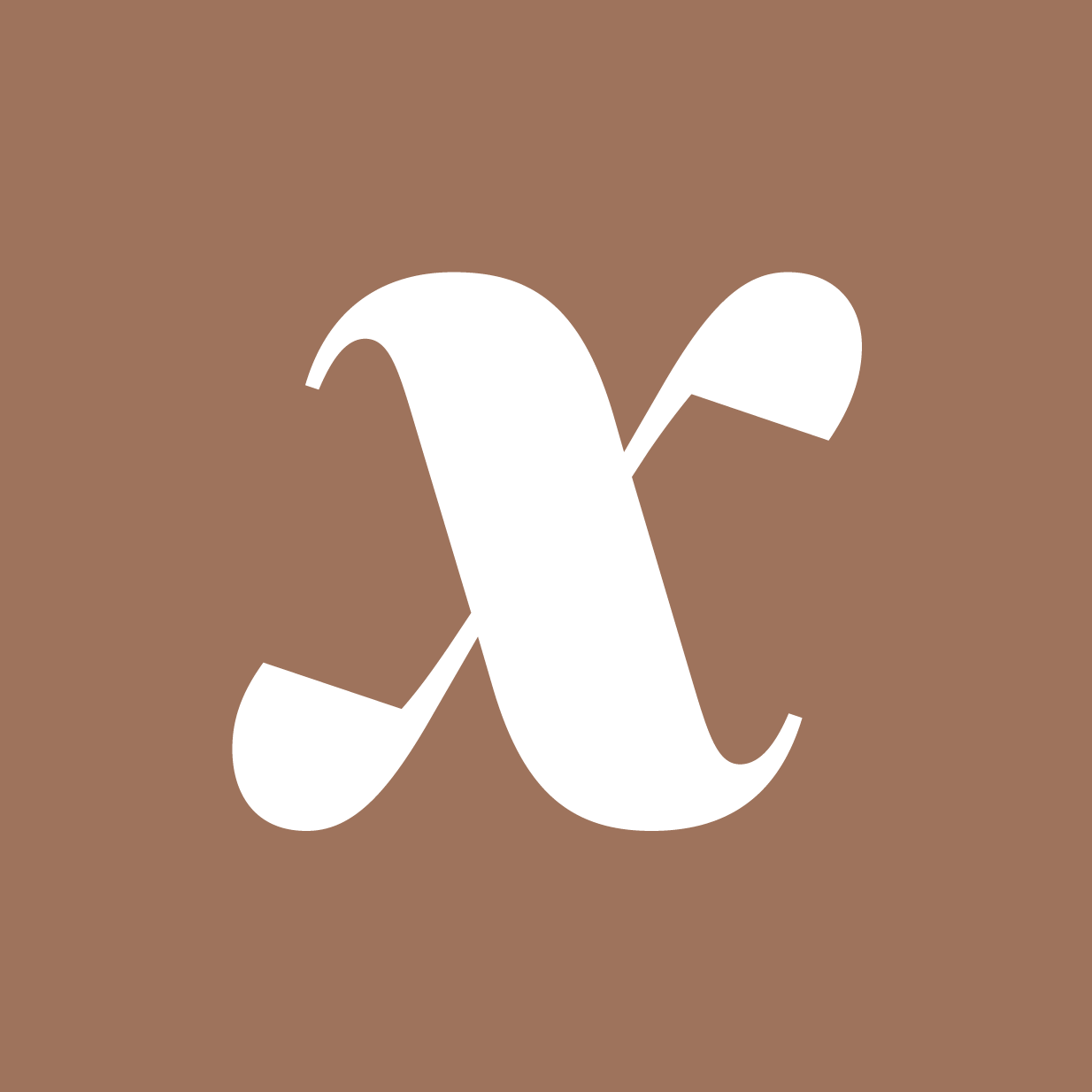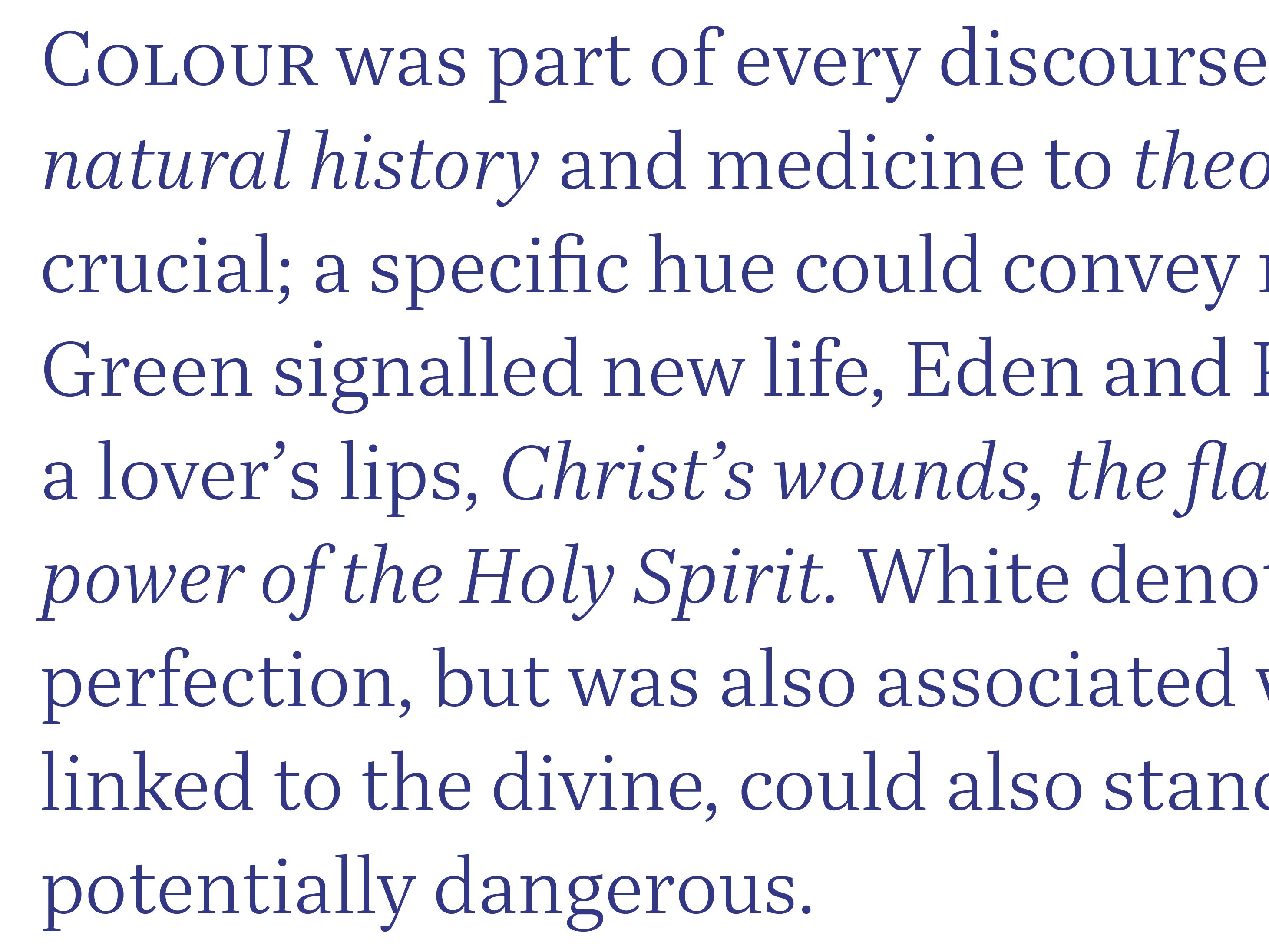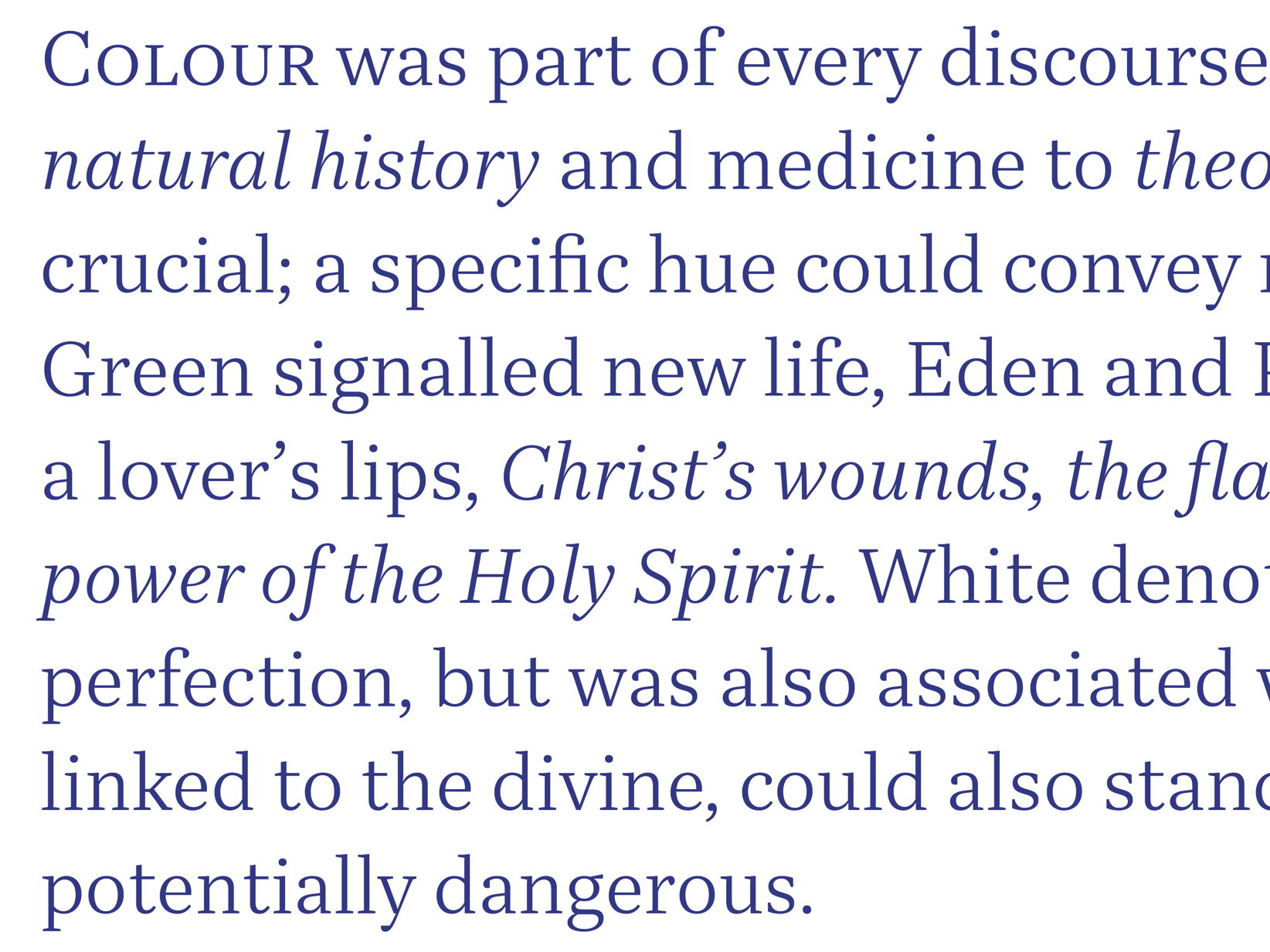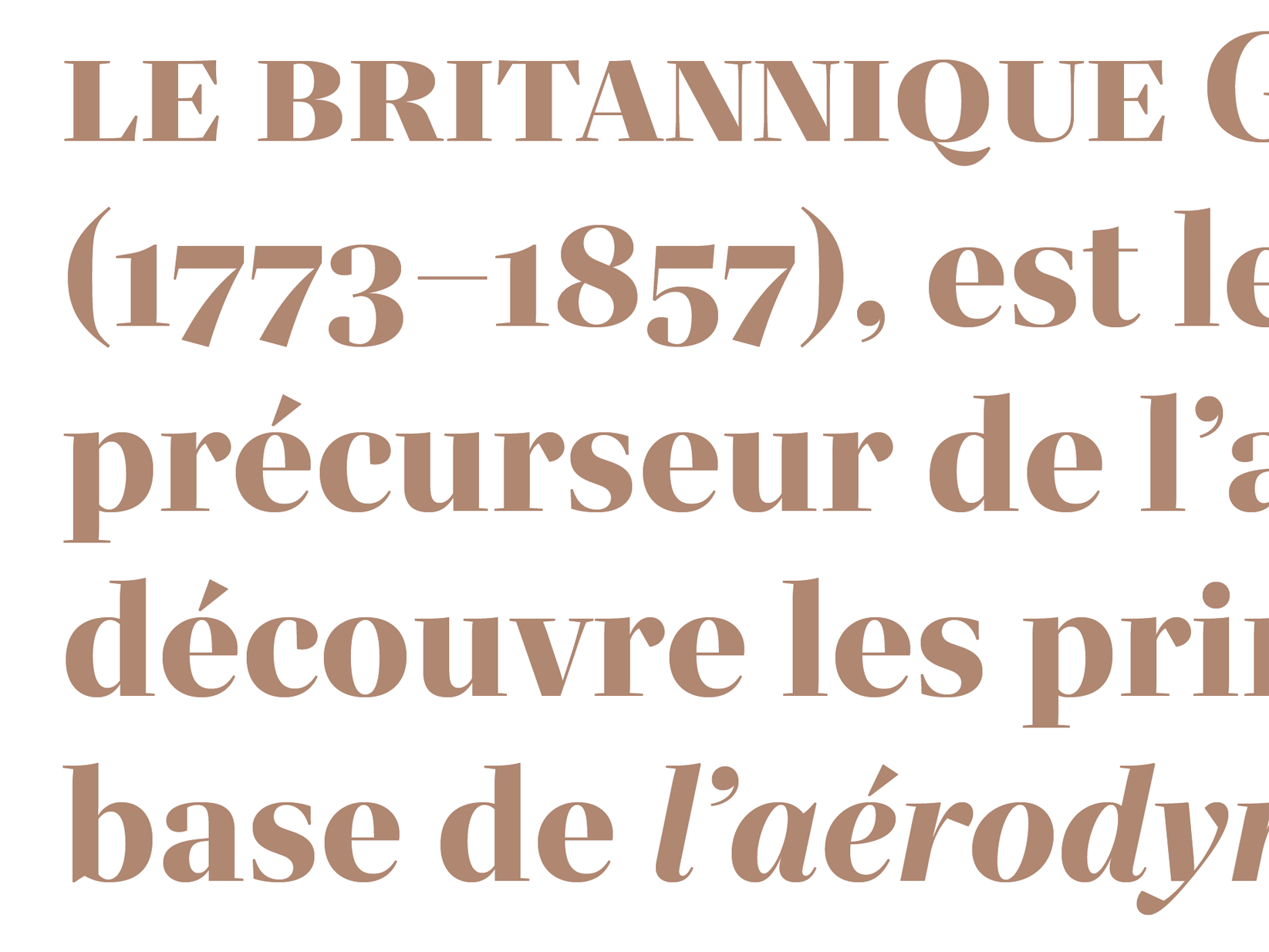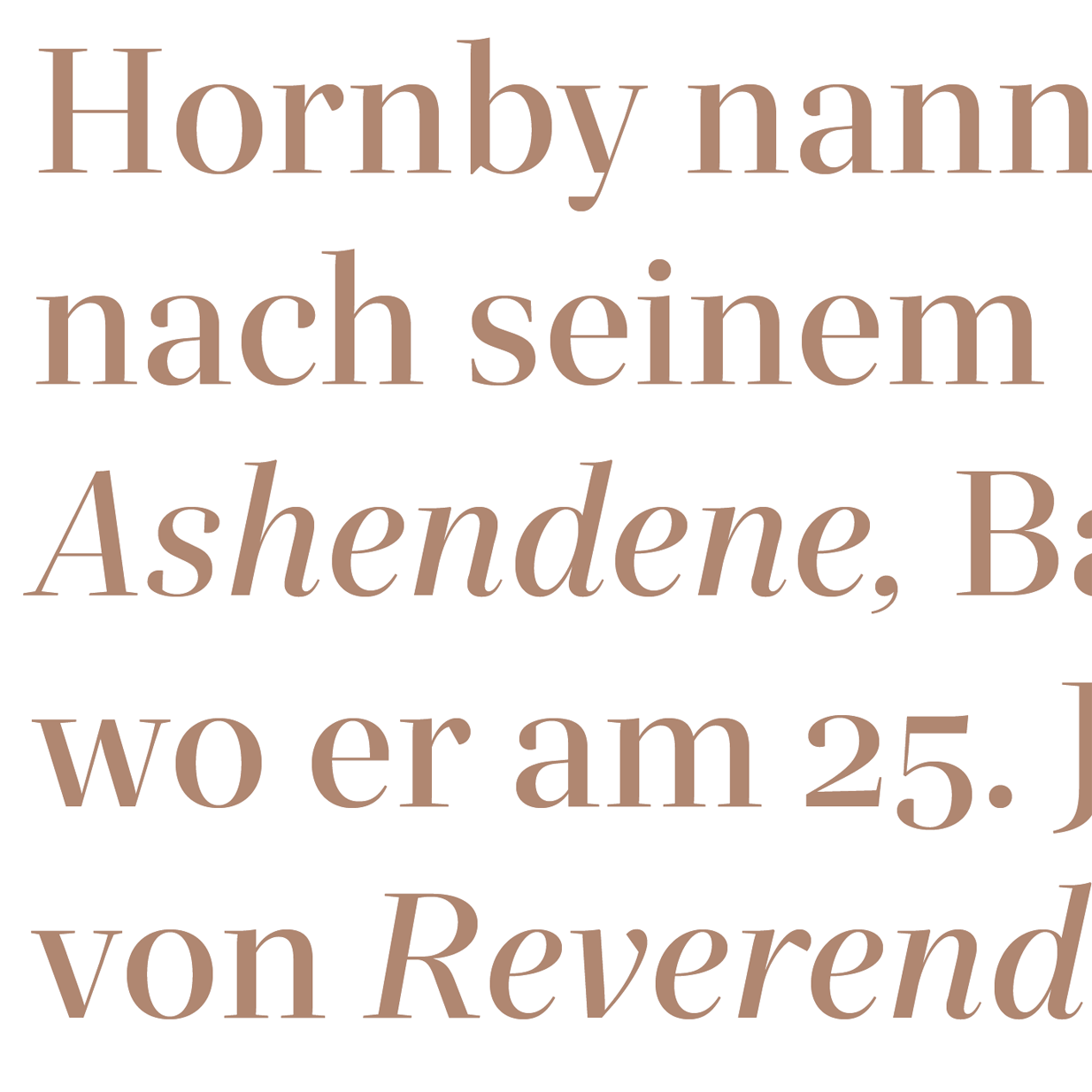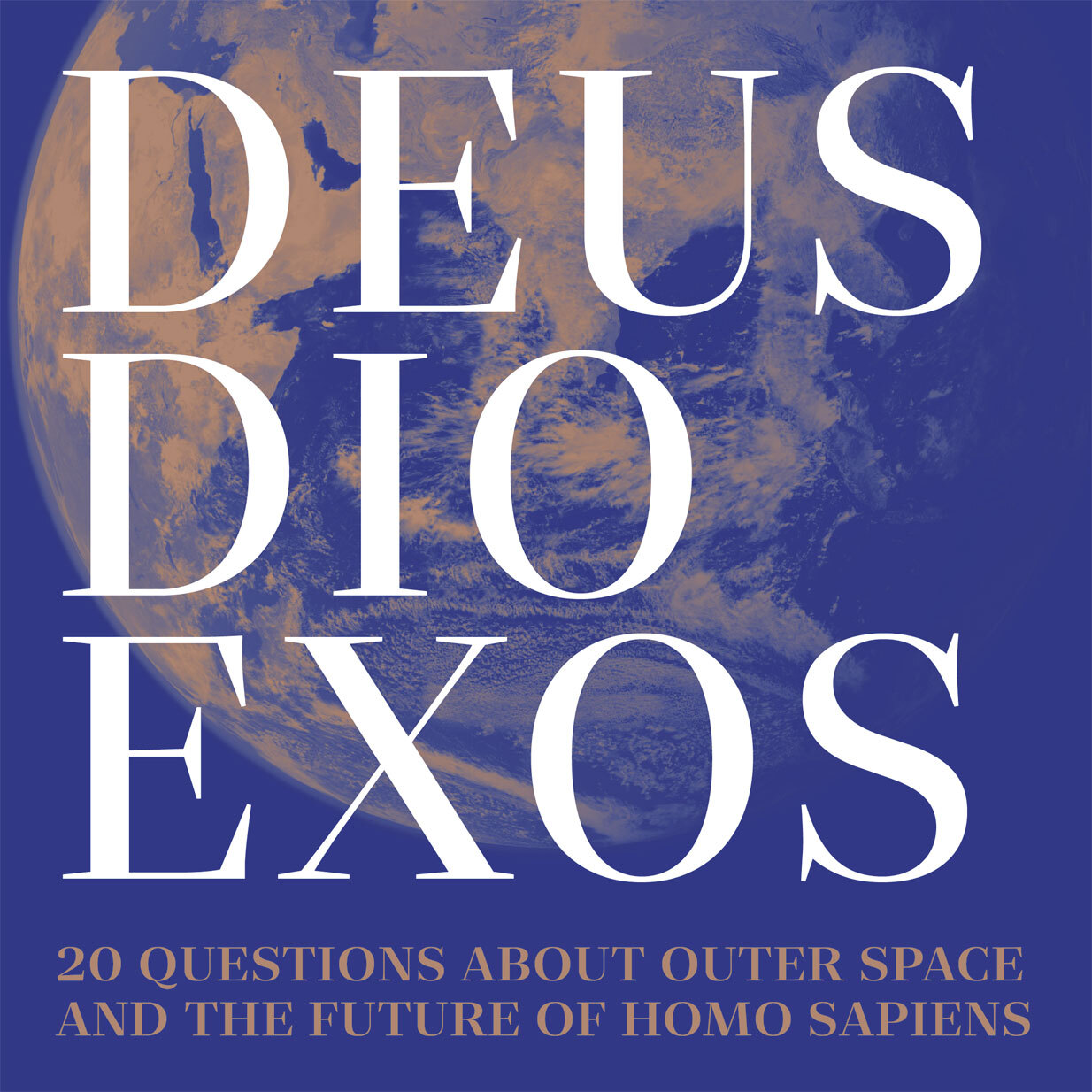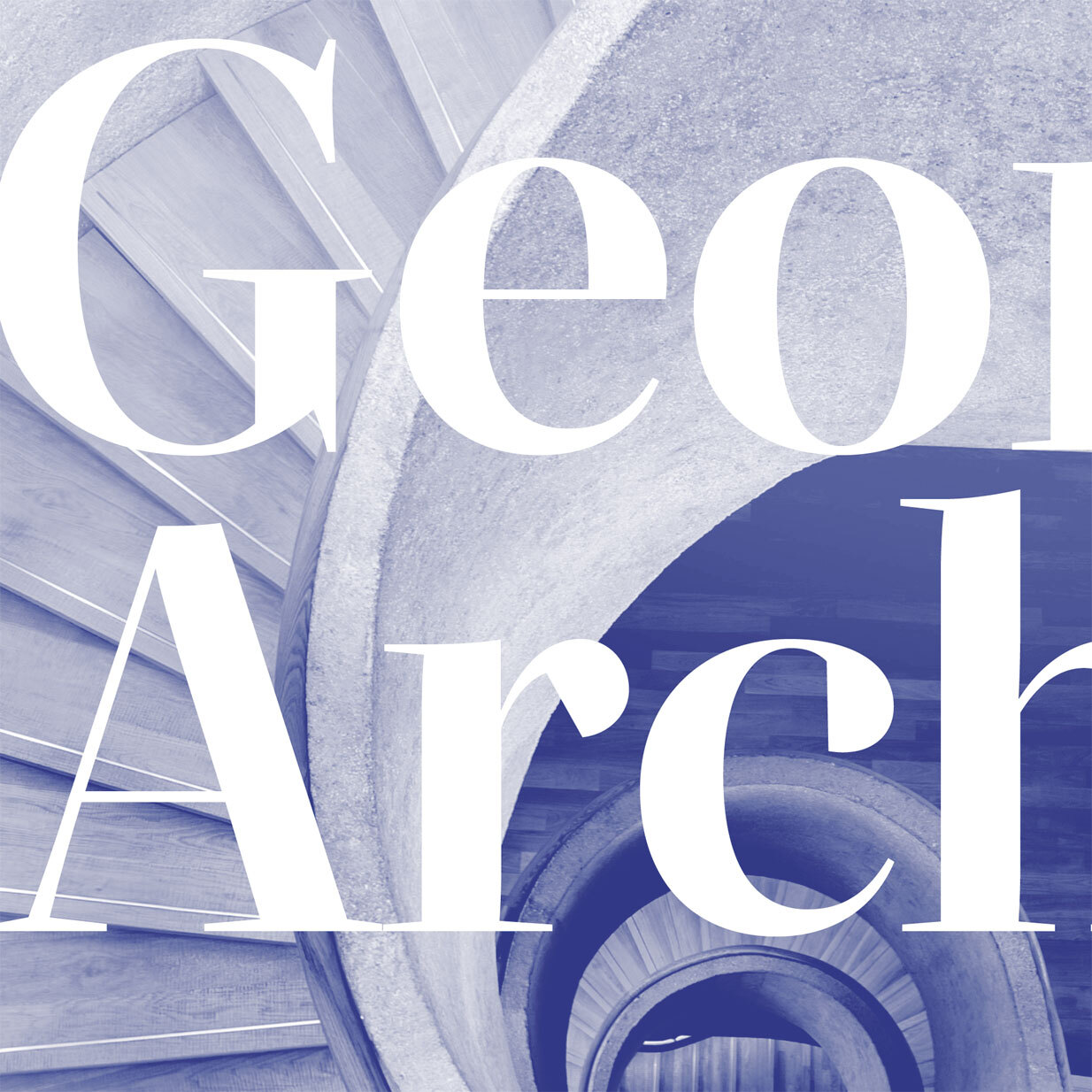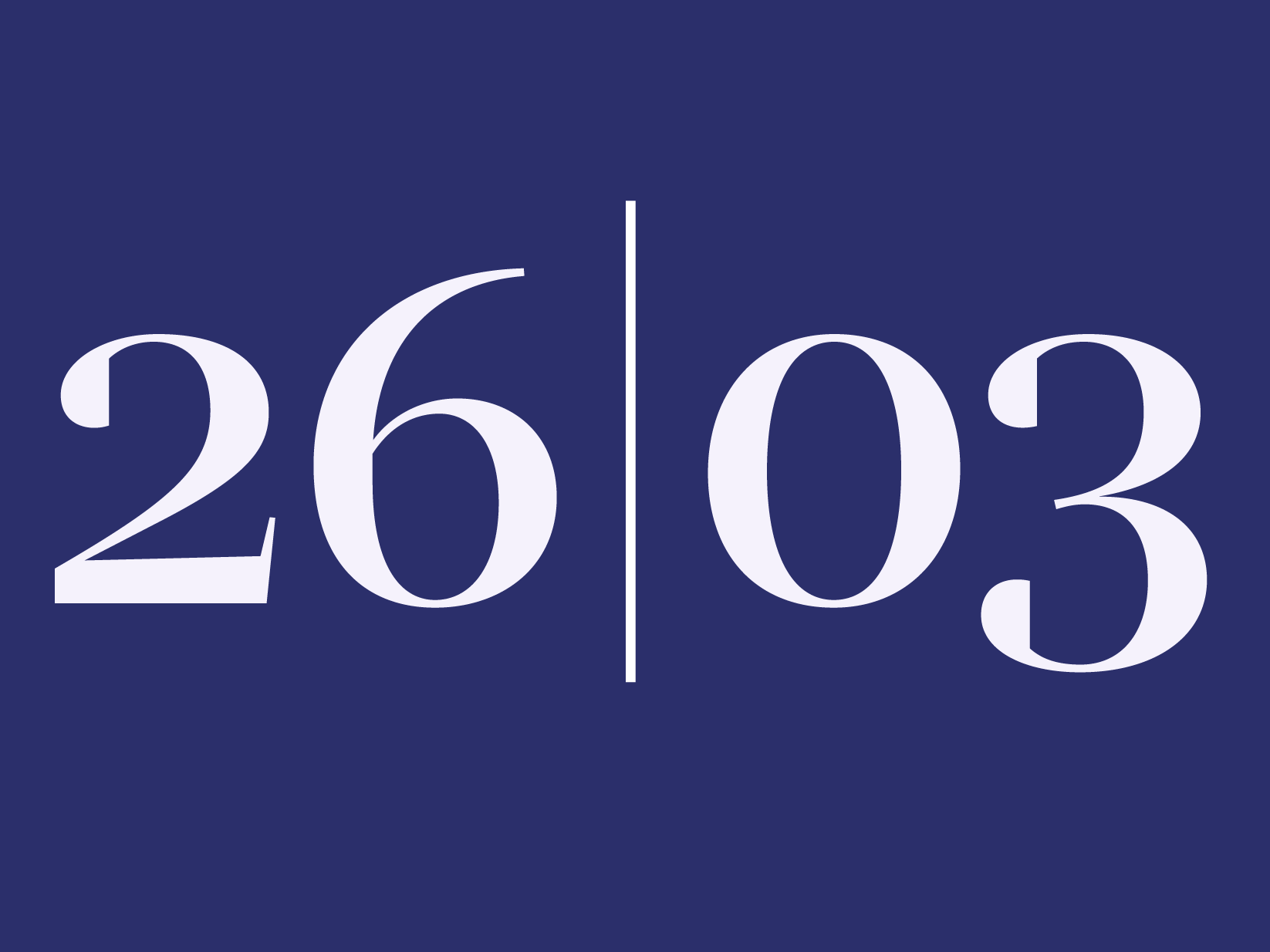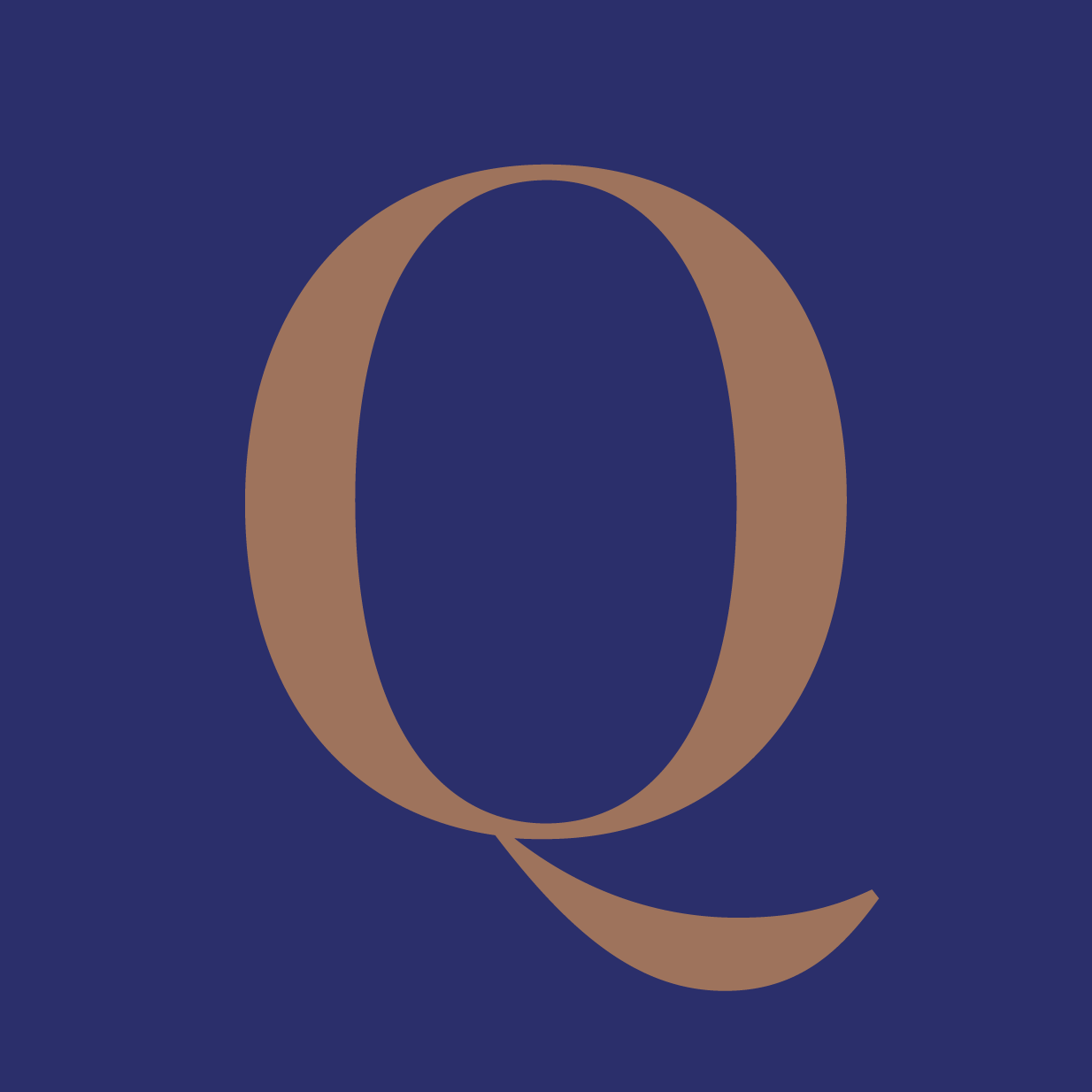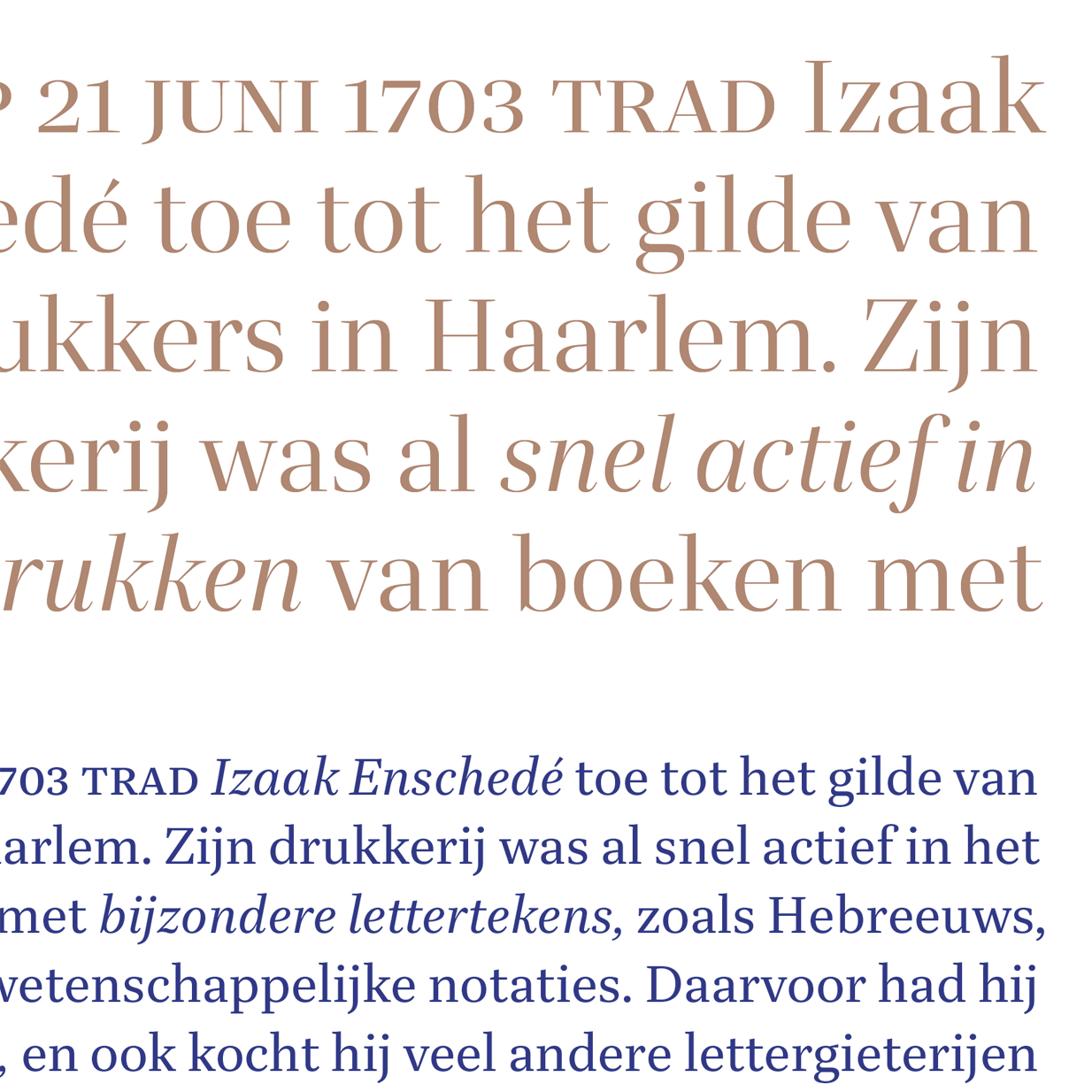
Quinn
Quinn is a typeface family for editorial design and publishing of all kinds. With its reliable and resolute constitution it lends itself especially well for less literary work such as textbooks, non-fiction, or catalogs, while having enough flavor to stand out and be suitable for branding and advertising. The overall theme of Quinn takes cues from realist (transitional) serif faces such as those of Johann Fleischmann, but it sharply stands in the modern age, featuring high stroke contrast and vertical emphasis without being as rigid and stiff as a Didone.
The Quinn series consists of two sub-families: Quinn Text in 10 styles for sizes between 6–24 points, and Quinn Display in 14 styles for use above 24 points. This ample repertory facilitates complex typographic hierarchies and elaborate, varied layouts.
To enable tight and impactful settings, type designer Diana Ovezea opted to give the Display styles slightly shorter ascenders and descenders than the Text styles. Top serifs of the lower case align with the x-height, contributing to stability and strong horizontal guidance. Pronounced ink-traps and curve adjustments let text stay clear in small sizes. A rich set of OpenType features and symbols — small caps, several sets of numerals and ligatures, bullets, arrows and boxes — round out the extensive character-set that should delight any publication designer.
The design of Quinn started during the Type and Media course at the KABK in The Hague in 2013; development continued through 2019.
Designer
Diana Ovezea
2013–2019